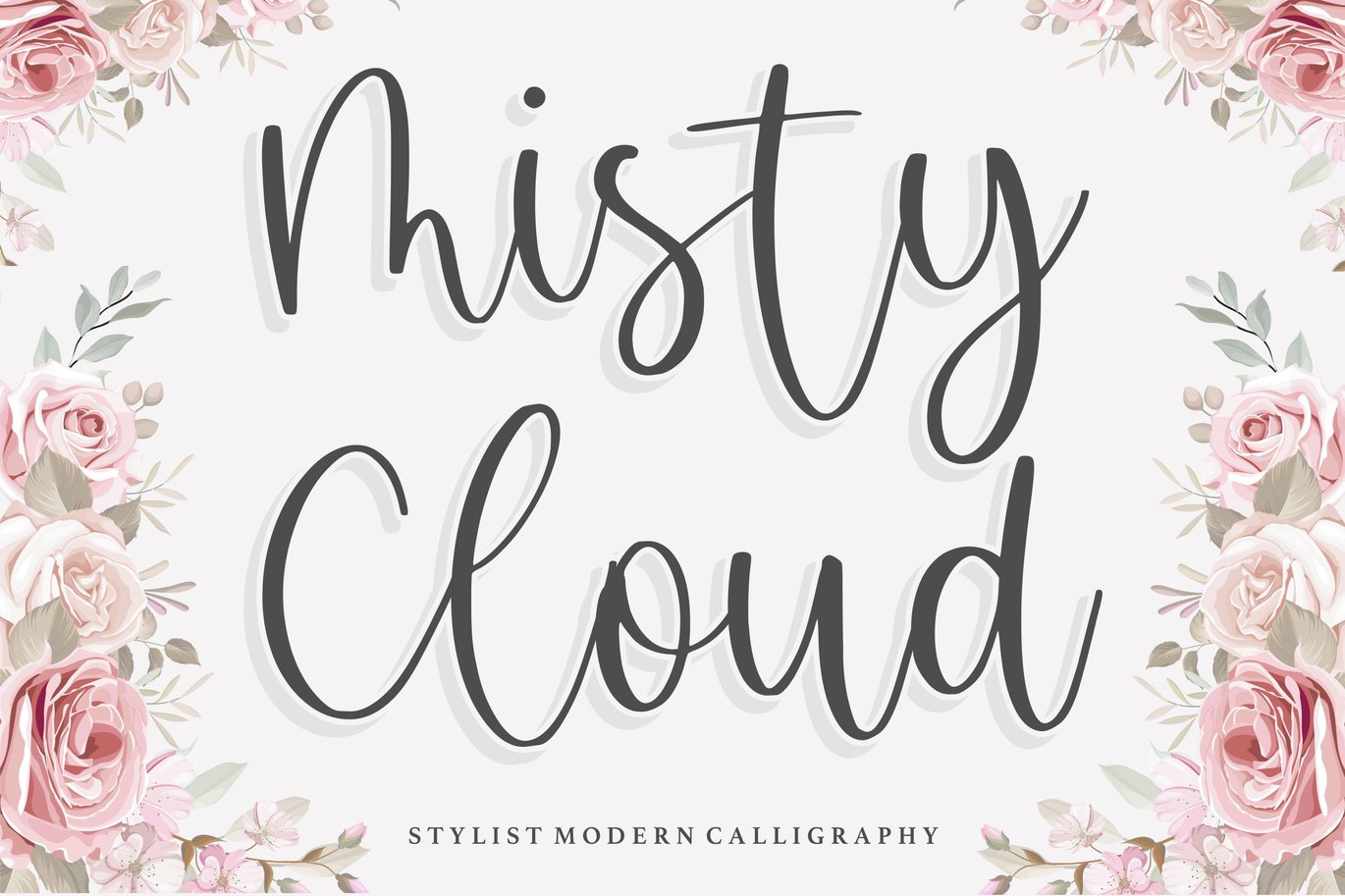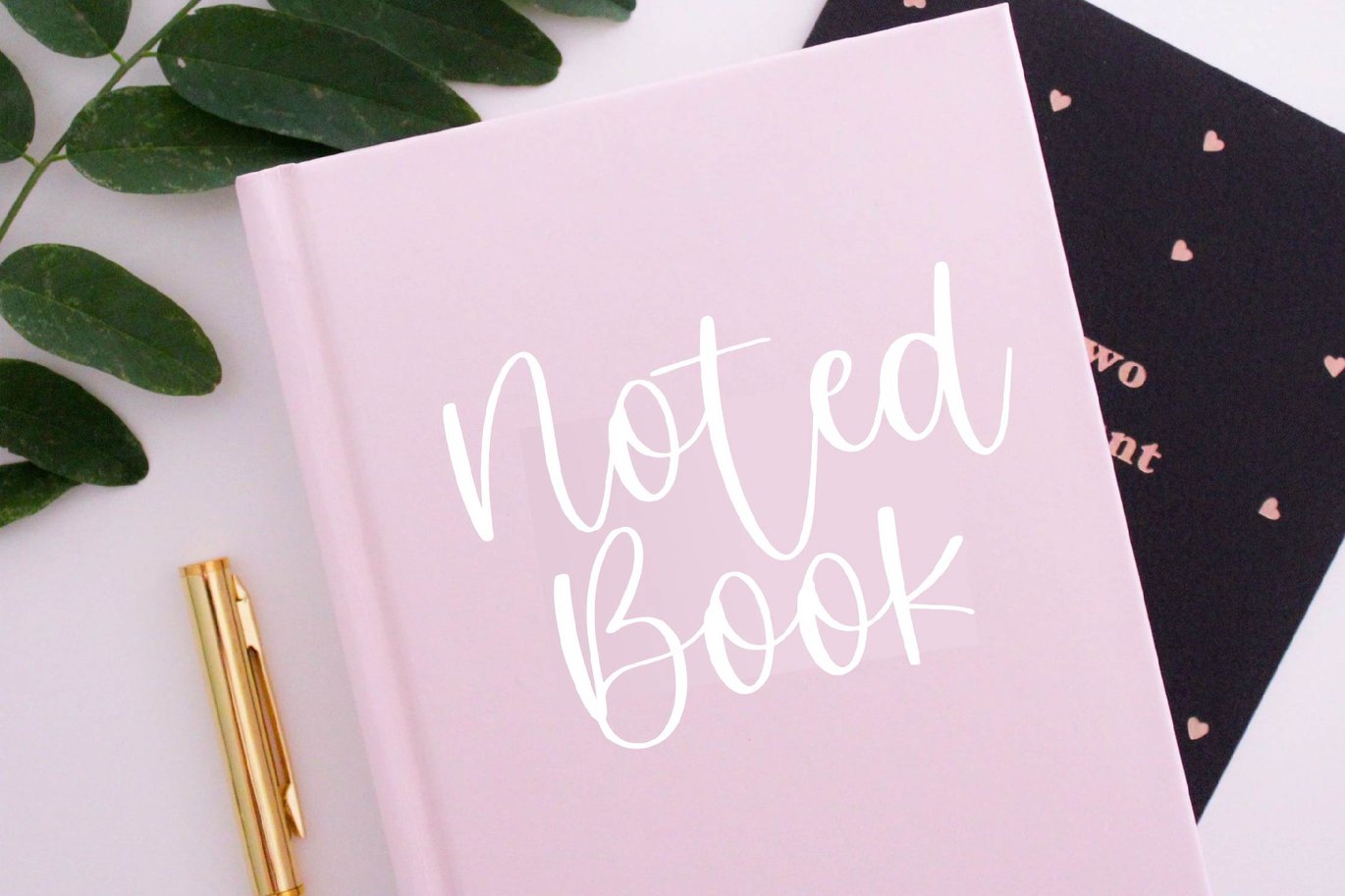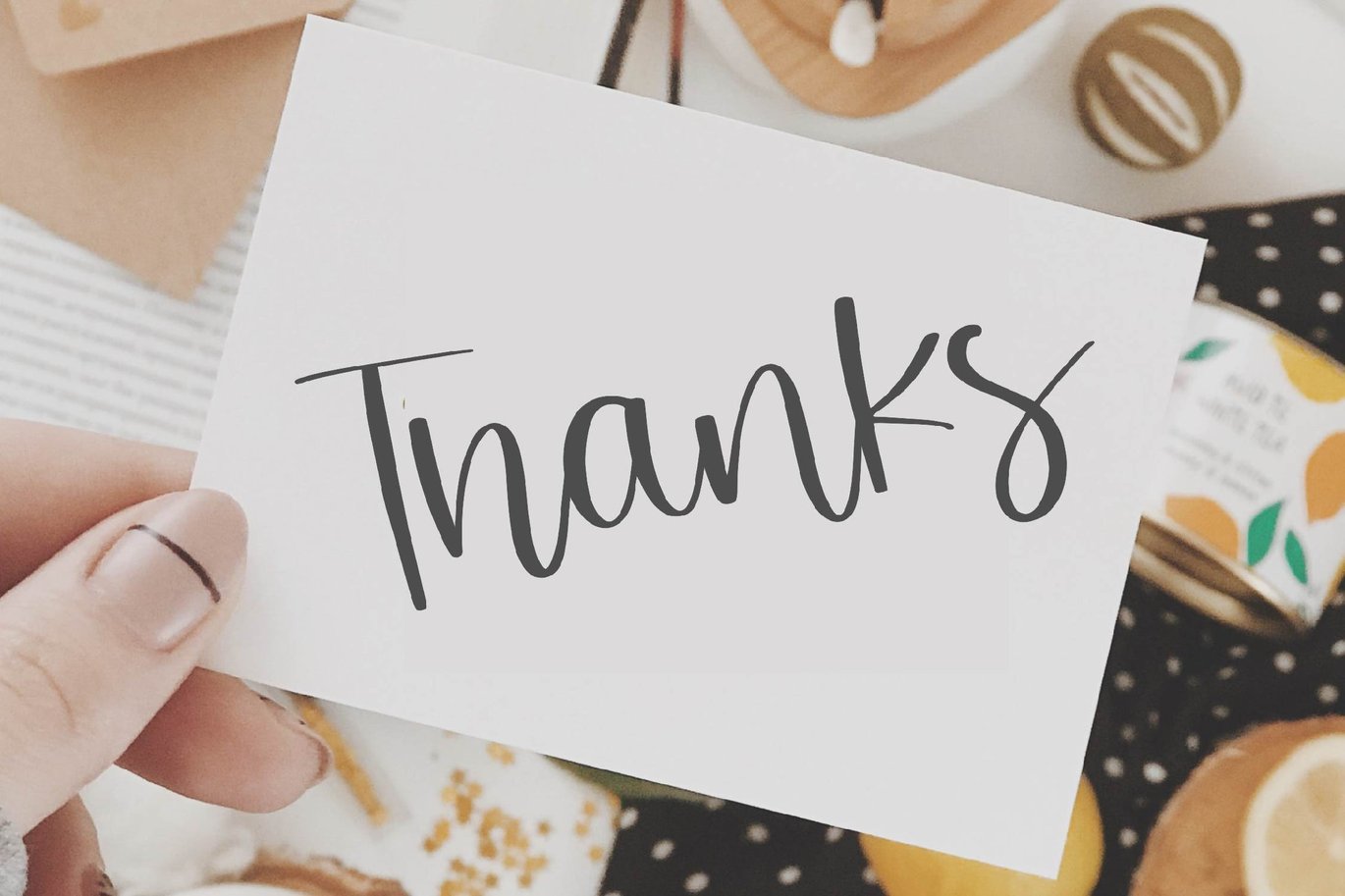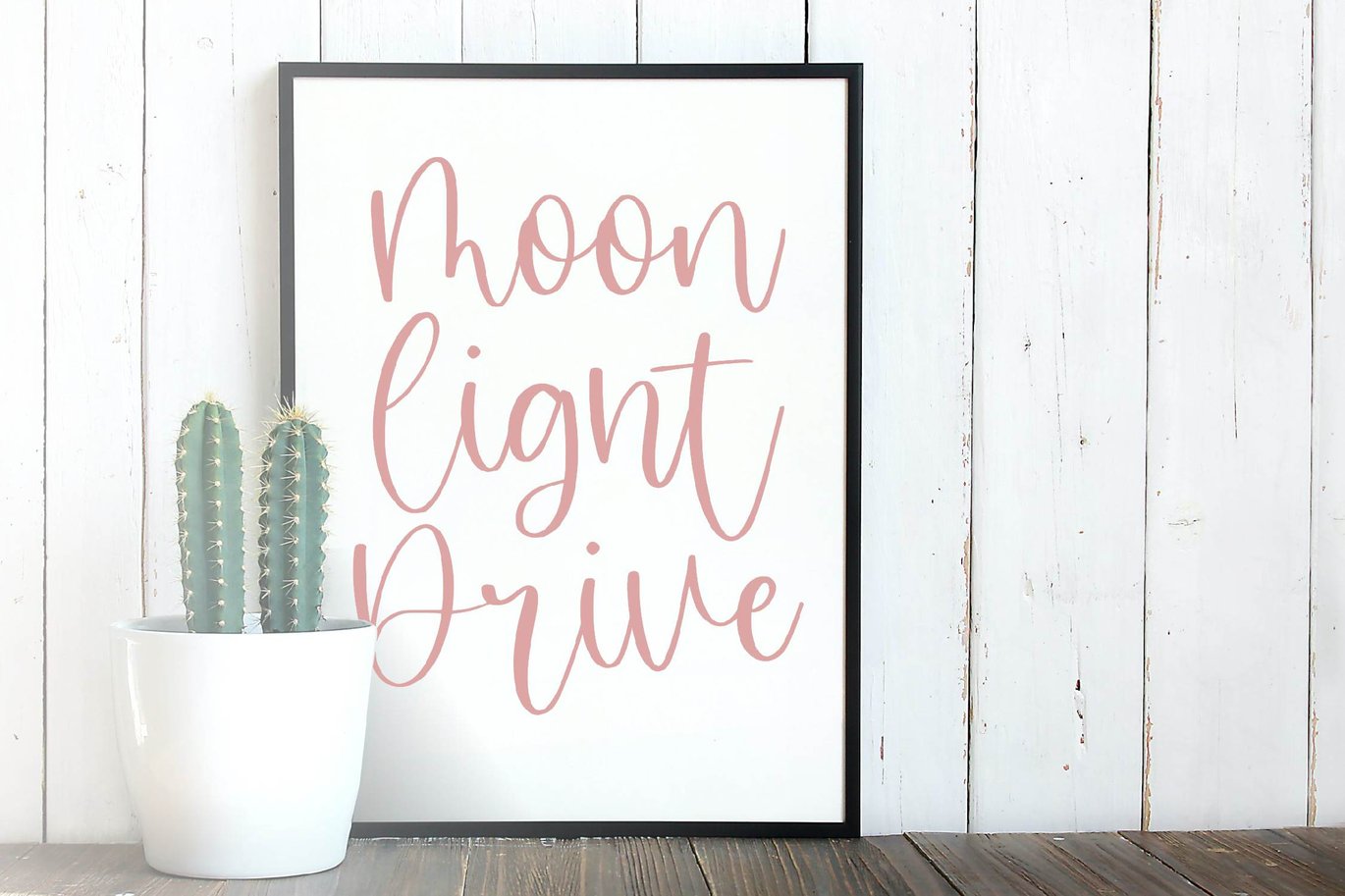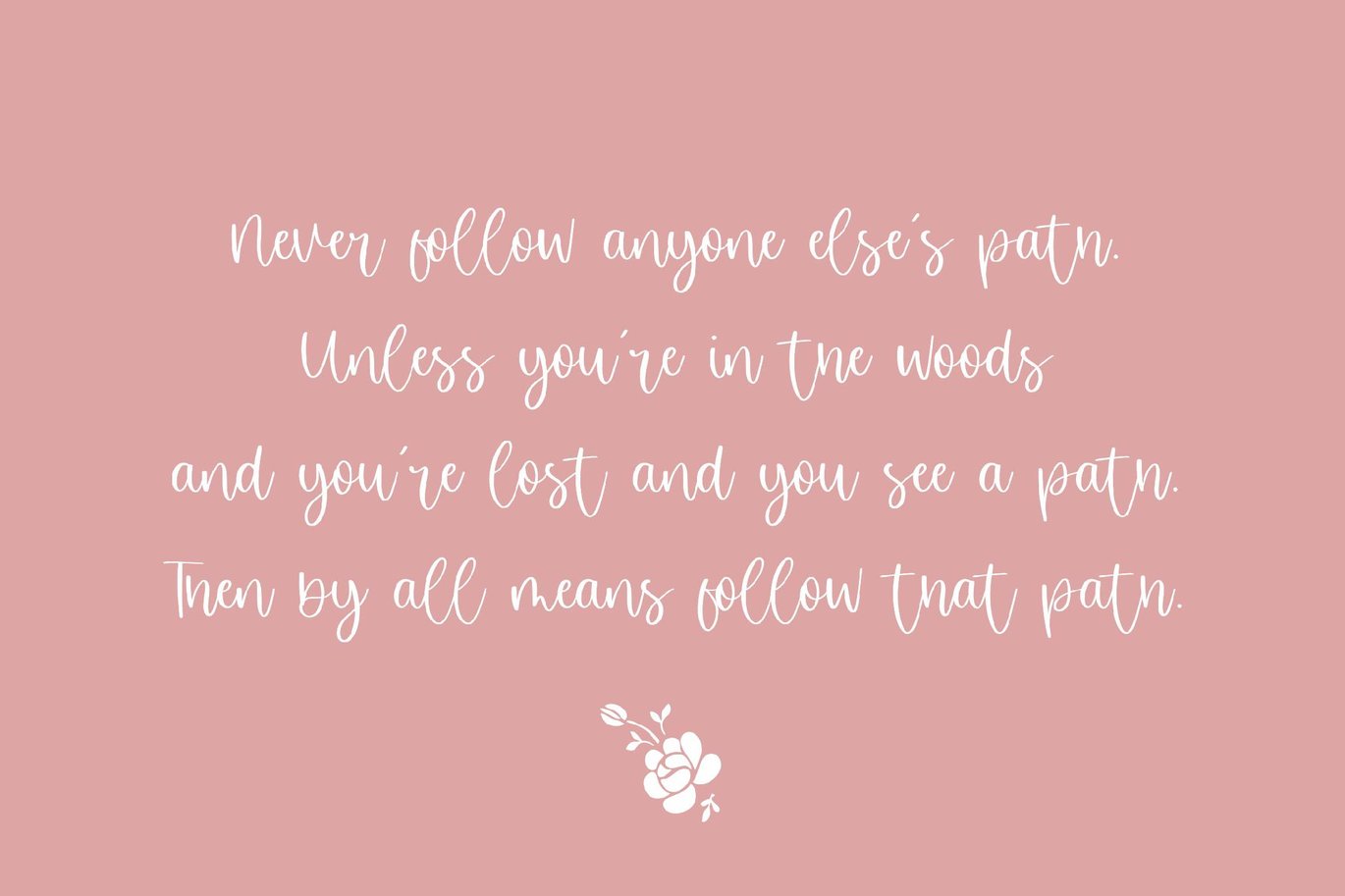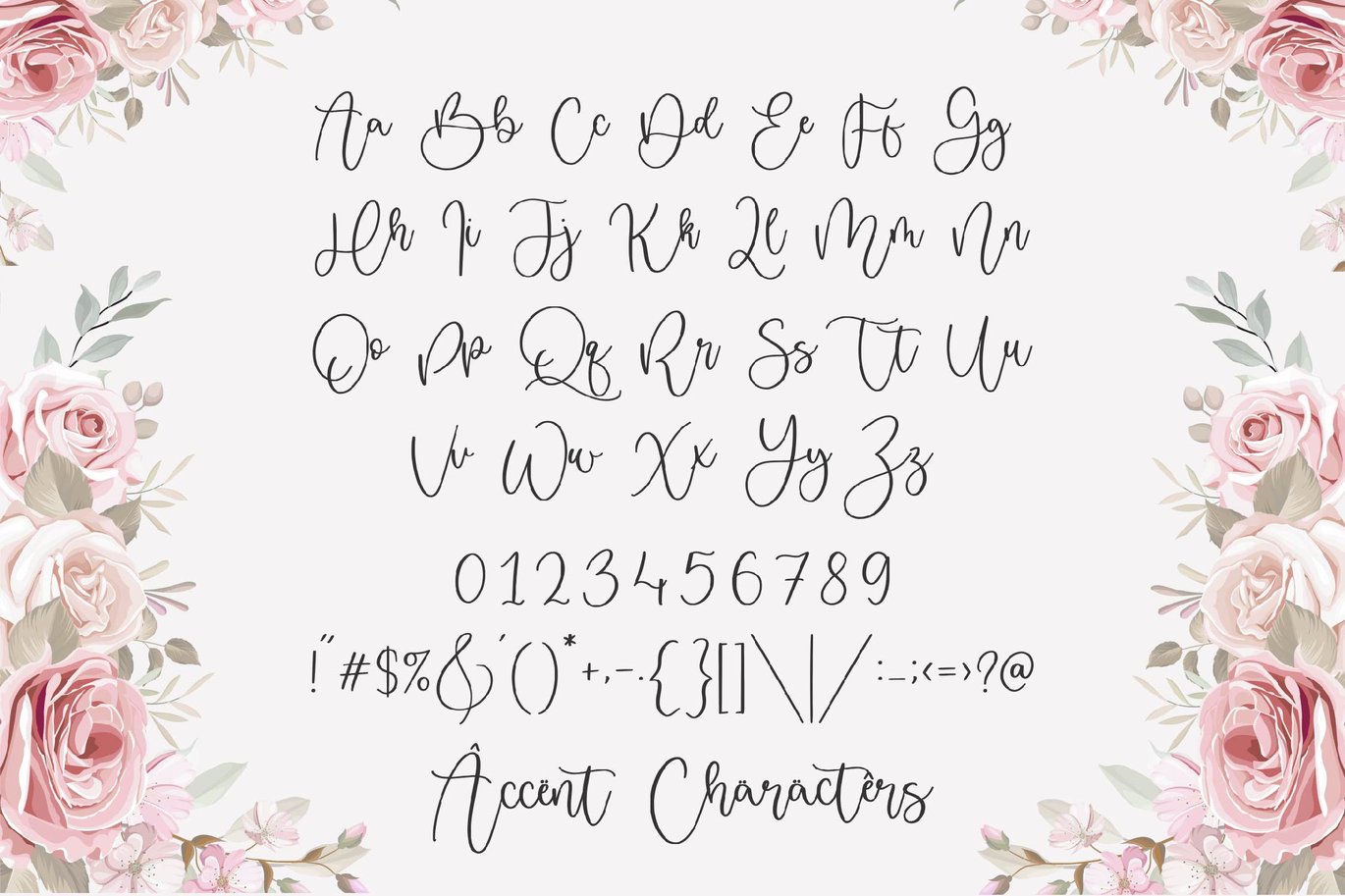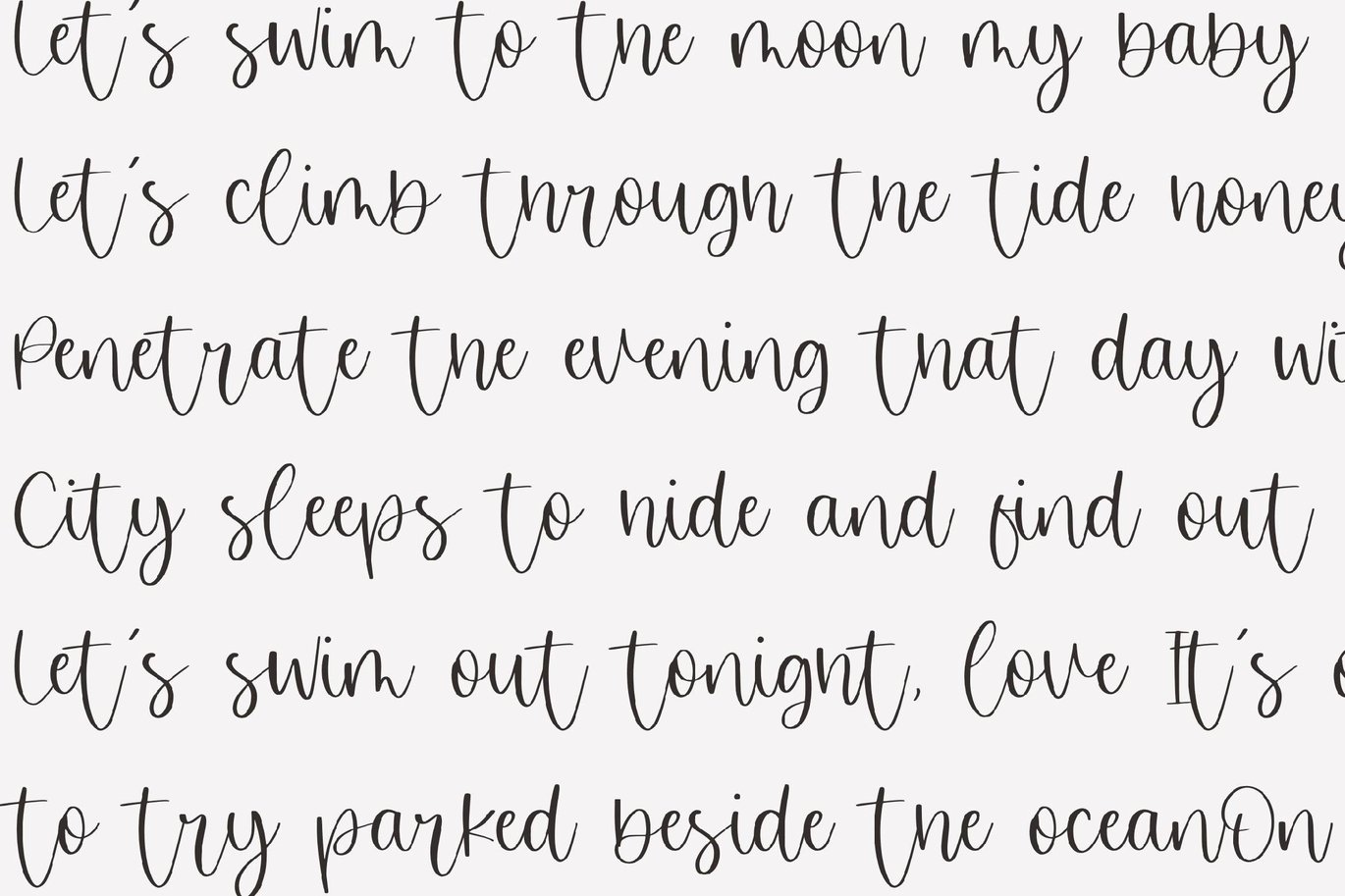
Misty Cloud – Stylish Calligraphy Logo Font
Proudly Present, Misty Cloud Font.
Misty Cloud is a Stylist Modern Calligraphy Font.
Misty Cloud is perfect for product packaging, branding project, megazine, social media, wedding, or just used to express words above the background.